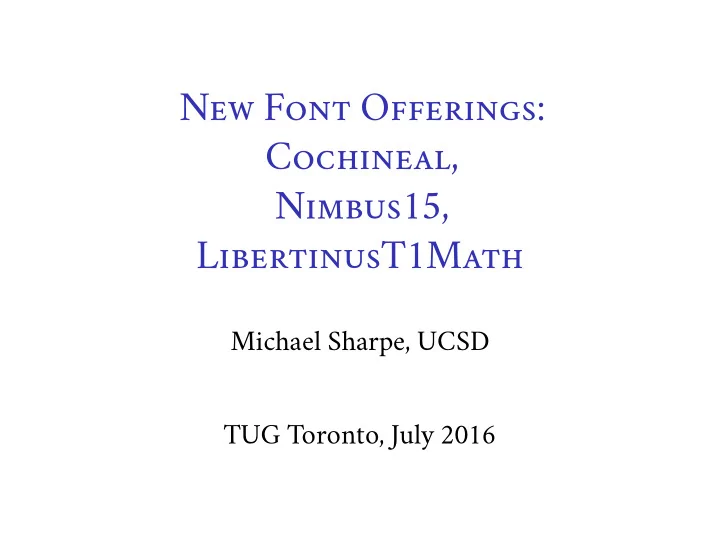
New Font Offerings: Cochineal, Nimbus15, LibertinusT1Math
Cochineal
◮ an oldstyle text font family with Roman, Greekand Cyrillic alphabets
◮ derived from Sebastian Kosch’s Crimson ◮ Roman alphabet resembles MinionPro but is not ametric clone thereof
◮ Regular, Italic, Bold, BoldItalic—otf and pfb ◮ roughly 1500 glyphs added to B ∪ I ∪ BI ◮ about 1500 glyphs now in each style ◮ available in OT1, T1, TS1, LY1, LGR, T2A, OT2encodings
◮ used for body text in these slidesCochineal
◮ the .otf files have much-expanded lookup tables ◮ figure styles {lining, osf} × {tabular, prop}, some ofwhich I added (note the light, tight braces)
◮ superior and inferior figures in all four styles: e.g.,SO₄
◮ superior roman letters, Abc¹²³ ◮ small caps in all four styles: Small Caps, Small Caps, Small Caps
◮ swash Q may be specified universally with apackage option or individually with a macro: Q
Cochineal vs. MinionPro
Cochineal Greek and Cyrillic
◮ Greek is available in monotonic, polytonic andsome ancient forms.
◮ Under LaT EX, Greek is available in LGR, used mainly by scholars who need to be able to generate short segments of polytonic and ancient Greek with a Western keyboard.
◮ Under LaT EX, Cyrillic is available in OT2, used mainly by scholars who need to be able to generate short segments of Cyrillic from a Western keyboard, and in T2A.
◮ Είναι όλα ελληνικά για µένα. ◮ Мое знание русского языка являеця жалким.Cochineal issues
◮ as generated by autoinst (a wrapper for otftotfm)the word-spacing fontdimens (2, 3, 4, 7) are lower than specified in Cochineal’s OTF TeX parameters
◮ must specify otftotfm’s space-factor to get correctvalues
◮ this is a common problem with LaT EX support files generated by autoinst/otftotfm
◮ a font with 6000 glyphs is bound to have bugs, asits name suggests, especially with spacing and kerning
Cochineal Math based on newtxmath
Simplest form of the Central Limit Theorem: Let X1, X2, · · · be a sequence of i.i.d. random variables with mean 0 and variance 1 on a probability space (Ω, F , P). Then P X1 + · · · + Xn √n ≤ y
Nimbus15:
◮ derived from Nimbus fonts, metric clones ofCourier, Helvetica and Times, issued in 2015 by URW++ by way of Artifex, makers of Ghostscript
Nimbus15 Mono (Courier)
◮ NimbusMono-Regular->zco-LightNimbusMono-Bold->zco-Bold NimbusMono-Oblique->zco-LightOblique NimbusMono-BoldOblique->zco-BoldOblique
◮ a new weight, intermediate between Light andBold, was created with names zco-Regular, zco-Oblique
◮ glyphs in Light, Regular and Bold havestem widths 41em, 64em and 100em respectively
◮ the stem width in cmtt10 is 69em, slightly morethan zco-Regular, its advance width is 525em, less than zco-Regular at 600em
Nimbus15 Mono Greek
◮ Greek glyphs support only monotonic Greektypography
◮ alpha (less fish-like) α → α ◮ nu (curved, not v-shaped) ν → ν ◮ Phi (less tall) Φ → ΦNimbus15 Mono Narrow
◮ zco-Regular was modified to a narrowversion, zcoN-Regular, starting with some FontForge Style/Change glyph transformations and then manually shortening serifs where necessary and making roundish glyph outlines narrower
◮ sample:This is NimbusMonoNarrow, available
width 64em. IMO, it’s not all that bad for rendering code segments.
Nimbus15 Sans
◮ NimbusSanL, a metric clone of Helvetica, hasbeen extended to include Greek (monotonic only) and Cyrillic glyphs.
◮ I changed the tonos accent from vertical toslanted for consistency with the Courier and Times clones.
◮ Given that TeX Gyre Heros has much moreextensive coverage of Latin glyphs, the only usage that makes sense to me is for standalone Greek and Cyrillic.
Nimbus15 Serif
◮ NimbusRomNo9L, a metric clone of Times, hasbeen extended by URW++ to include Greek (monotonic only) and Cyrillic glyphs
◮ current distribution from URW/Artifex has manygross errors in spacing and kerning of Greek and Cyrillic glyphs
◮ I expanded the Greek section so that polytonicand some ancient Greek forms are available, added a number of Cyrillic glyphs and tried to correct the spacing and kerning
◮ following complaints about the overly tall largenew glyphs about 20% shorter at display size and about 12% shorter at text size, with selection controlled by the option shorterops
Newtxmath/newpxmath additions
◮ constructions using math delimiters with, e.g.,\biggl(, were not producing the traditional sizes of output, and I reworked all the math delimiter glyphs to correct this